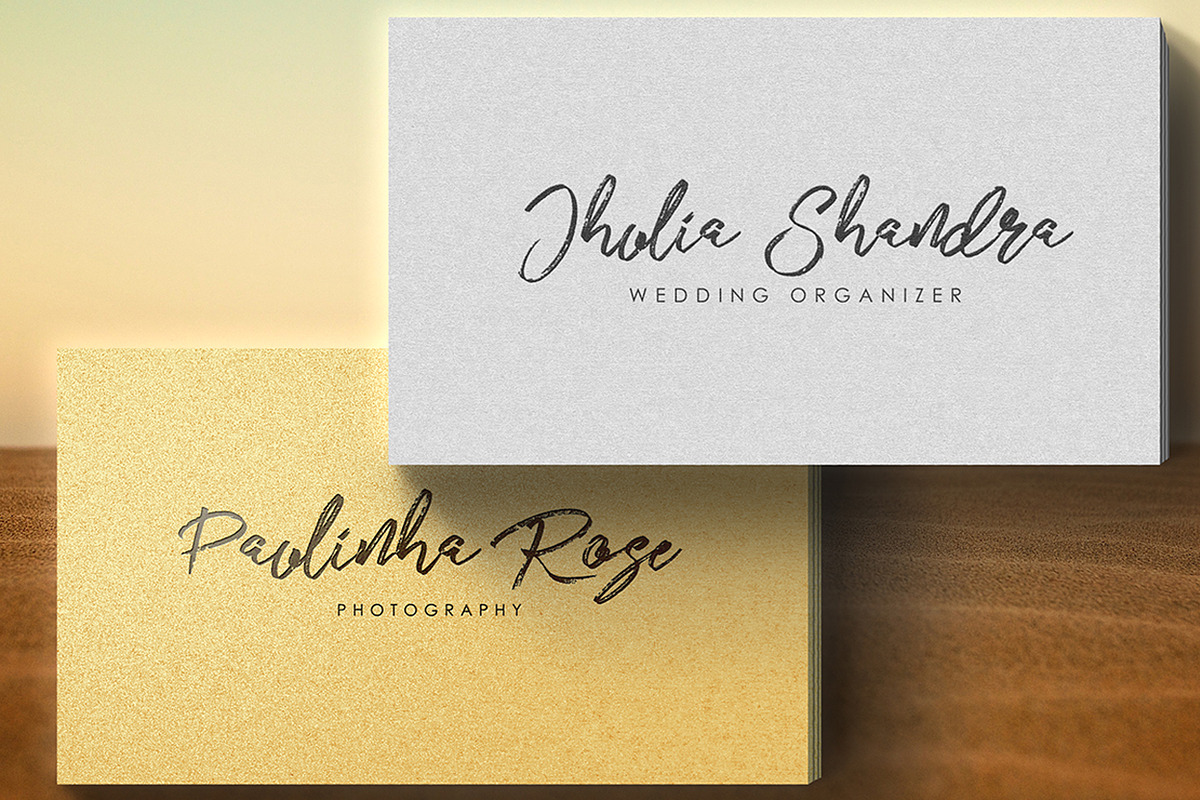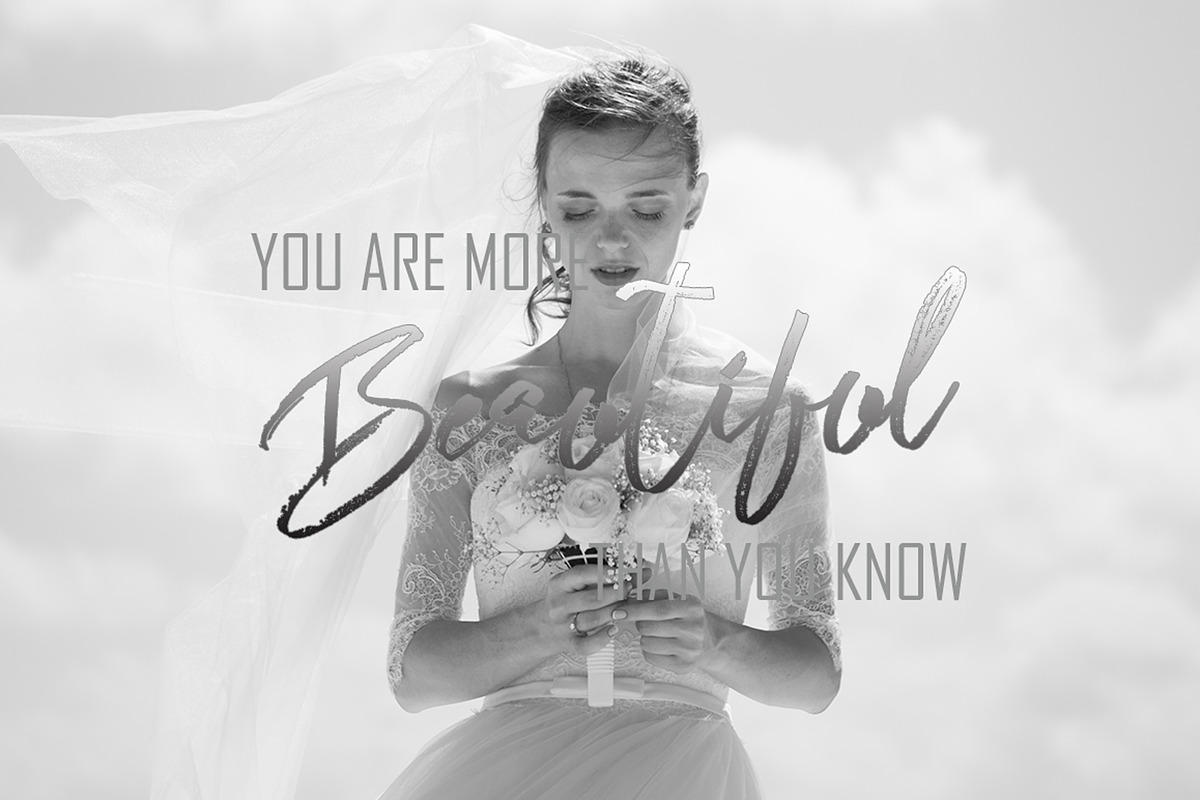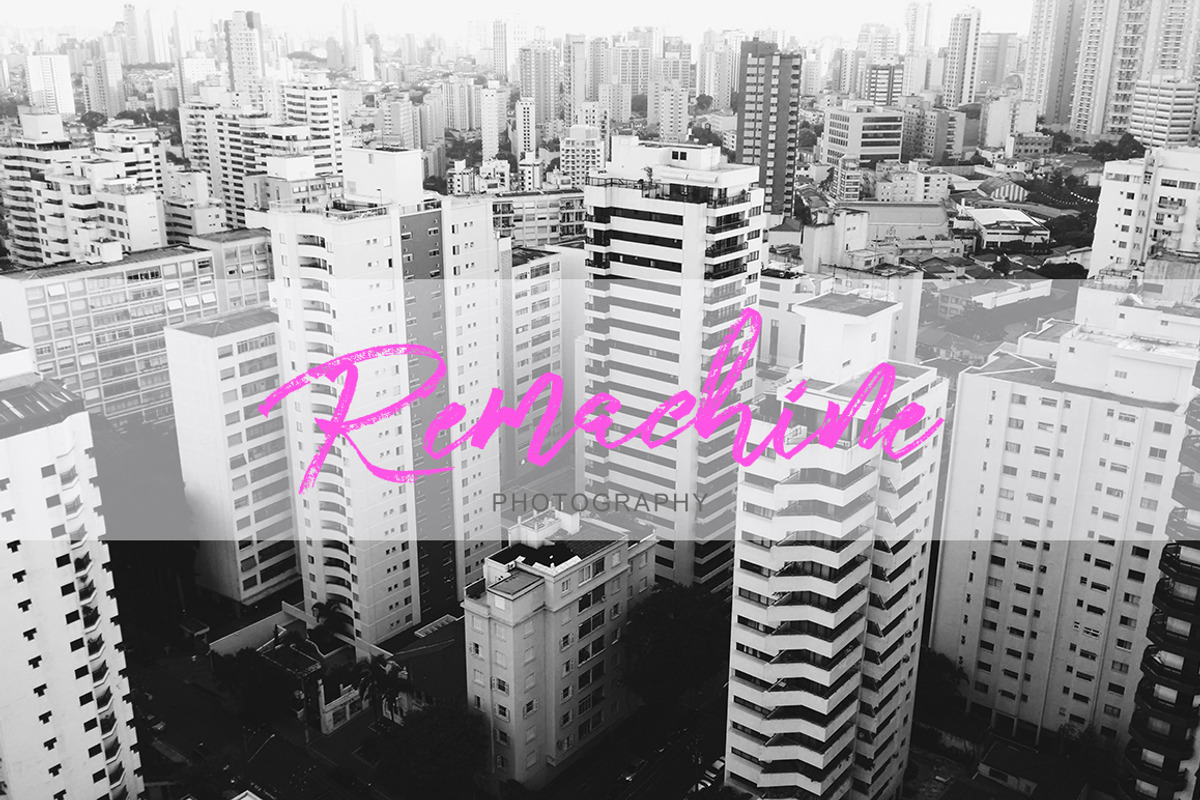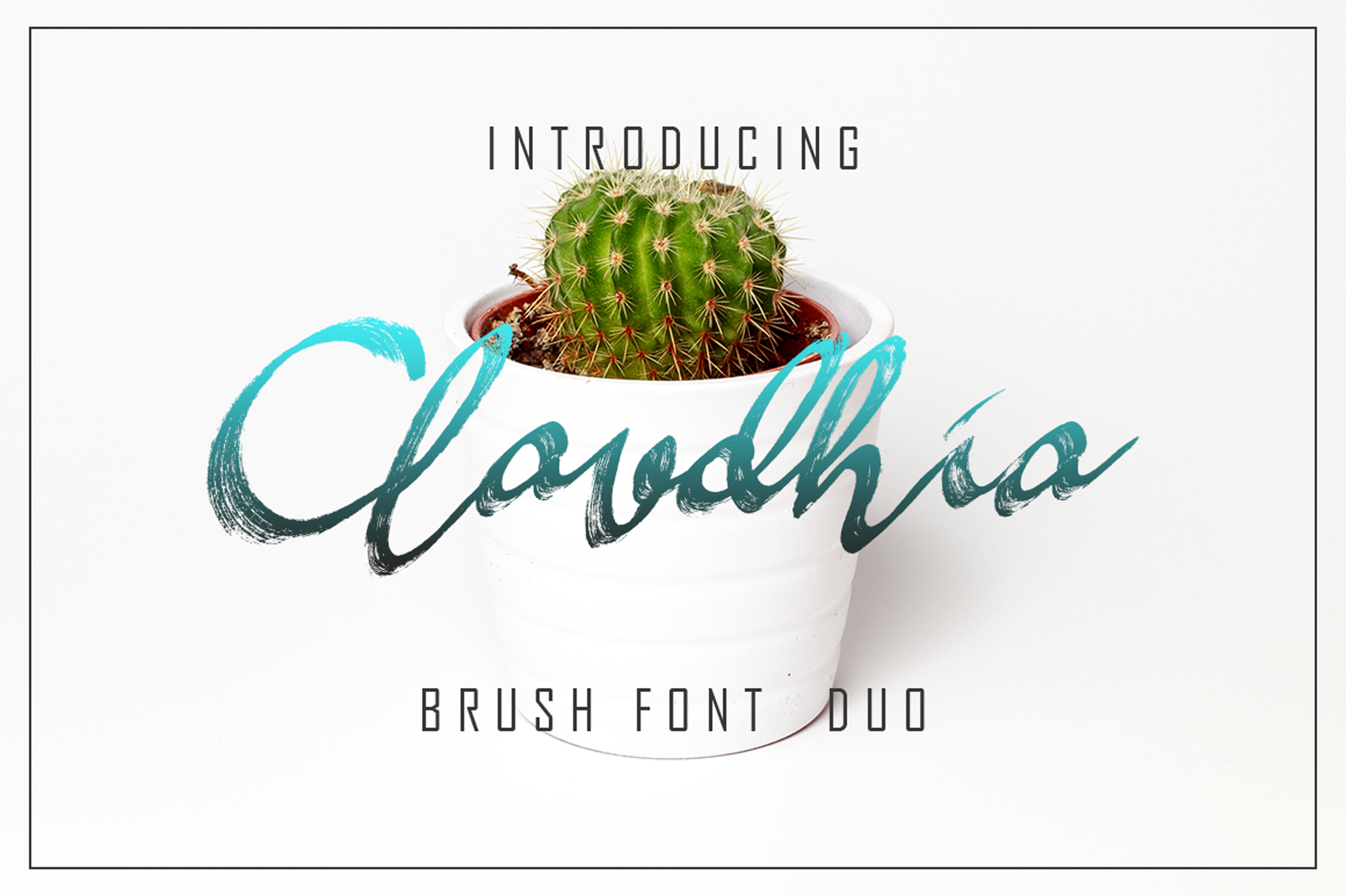
Claudhia is bold brush script font. With modern script style this font will perfect for many different project ex: quotes, blog header, poster, wedding, branding, logo, fashion, apparel, letter, invitation, stationery, etc.
Jhelio is brush script font. With modern script style this font will perfect for many different project ex: quotes, blog header, poster, wedding, branding, logo, fashion, apparel, letter, invitation, stationery, etc.